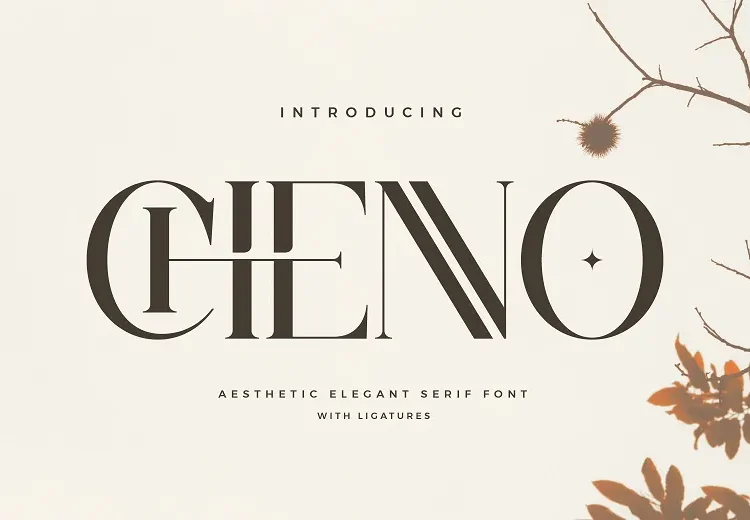
Chenno Font
Chenno is a modern serif font that masterfully blends the traditional aesthetics of the old-world with a contemporary touch. Its clean serifs and well-crafted lettering make it an ideal choice for branding, editorial use, and luxury design, offering an aesthetic that enhances the elegance of any project.
Key Features of Chenno:
Timeless Aesthetic: Chenno captures the essence of traditional serif fonts while infusing it with modern flair, making it perfect for projects that require both classic and contemporary elements.
Elegant and Refined: The clean serifs and precise lettering of Chenno give a sophisticated and polished look to your designs, whether used in branding, editorial layouts, or luxury projects.
Versatile Application: From branding and logos to editorial content and luxury packaging, Chenno adapts seamlessly, ensuring that every design is imbued with elegance and style.
Ideal Uses for Chenno:
Branding and Identity: Use Chenno to create a strong and elegant brand identity that combines traditional charm with modern sophistication.
Editorial Design: Apply Chenno in magazines, books, and other editorial projects to enhance readability while adding a touch of class.
Luxury Design: Chenno is perfect for luxury branding, packaging, and high-end products, elevating the overall aesthetic of your design.